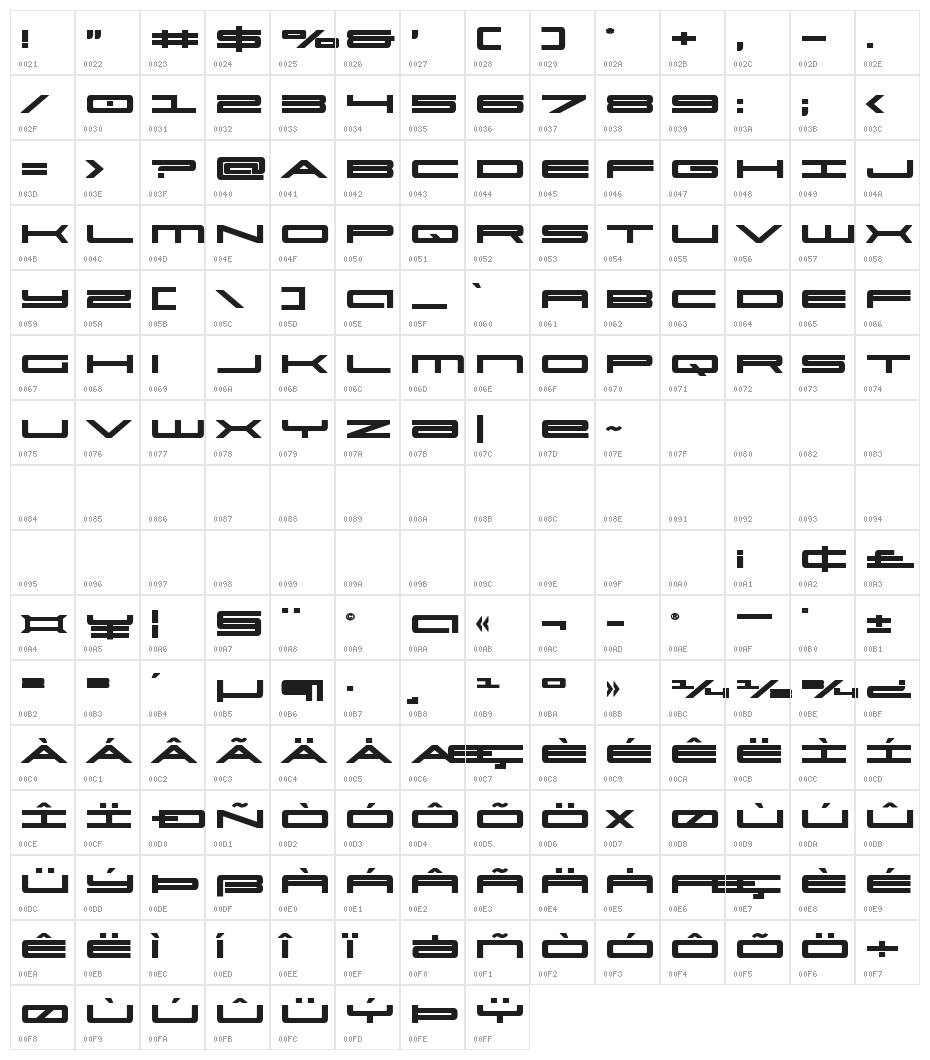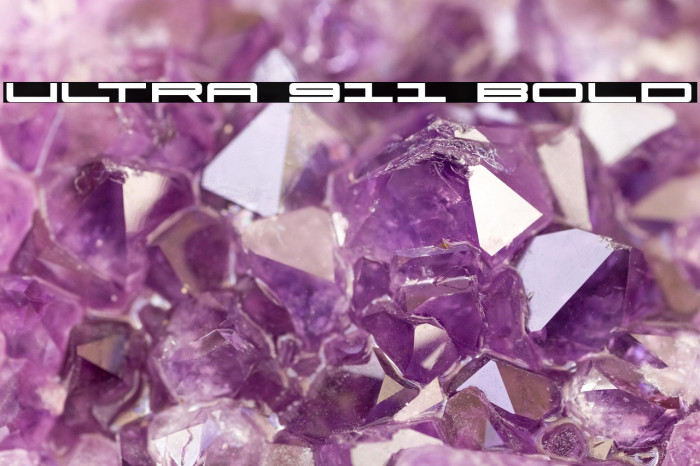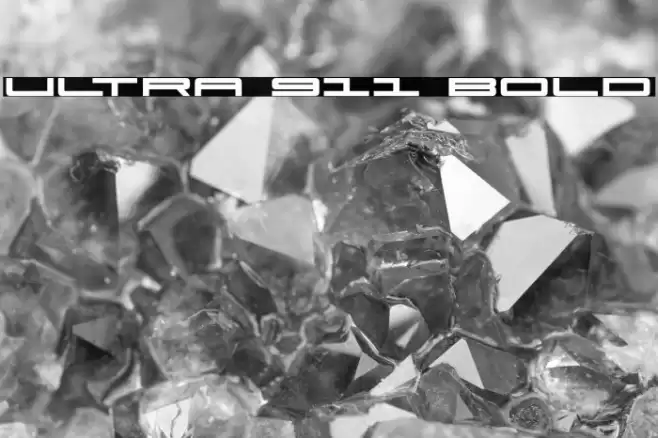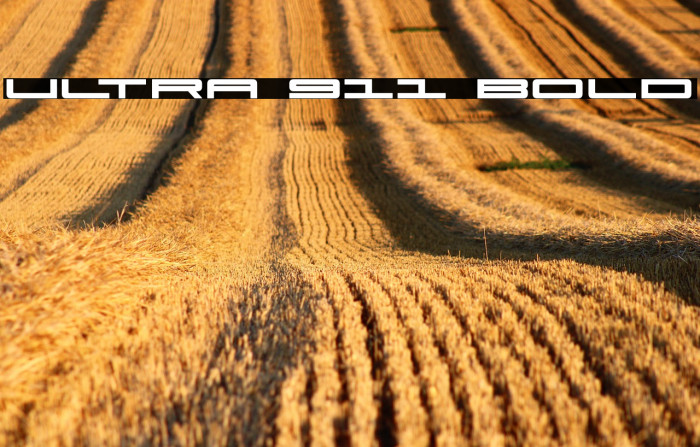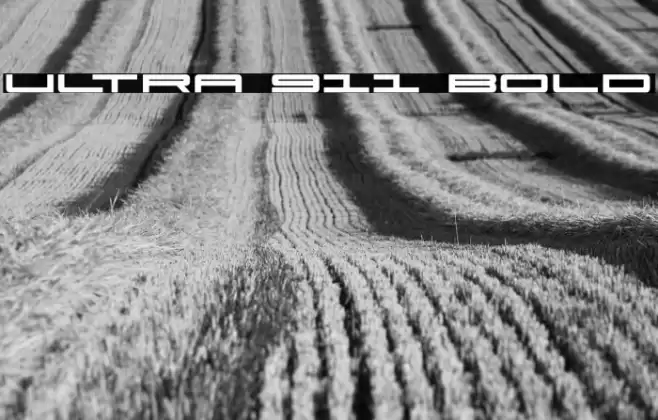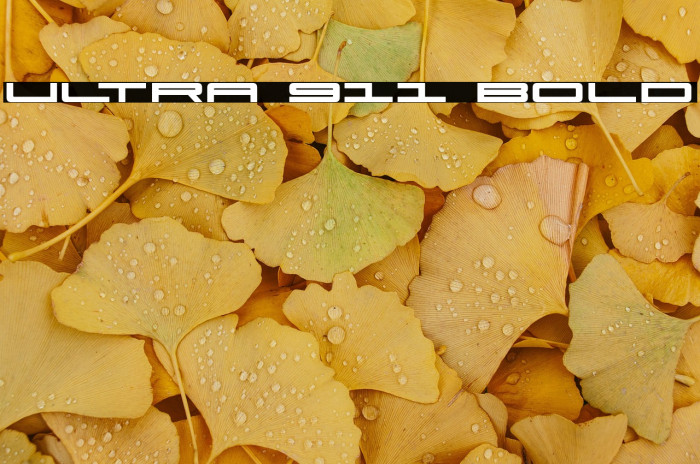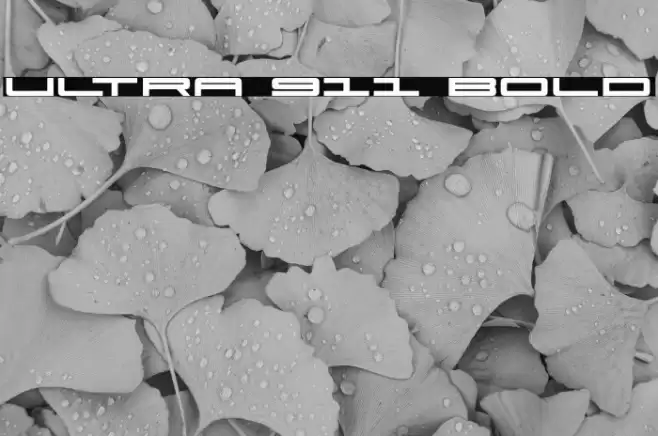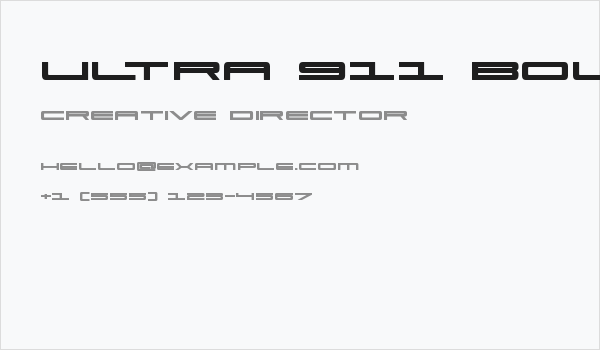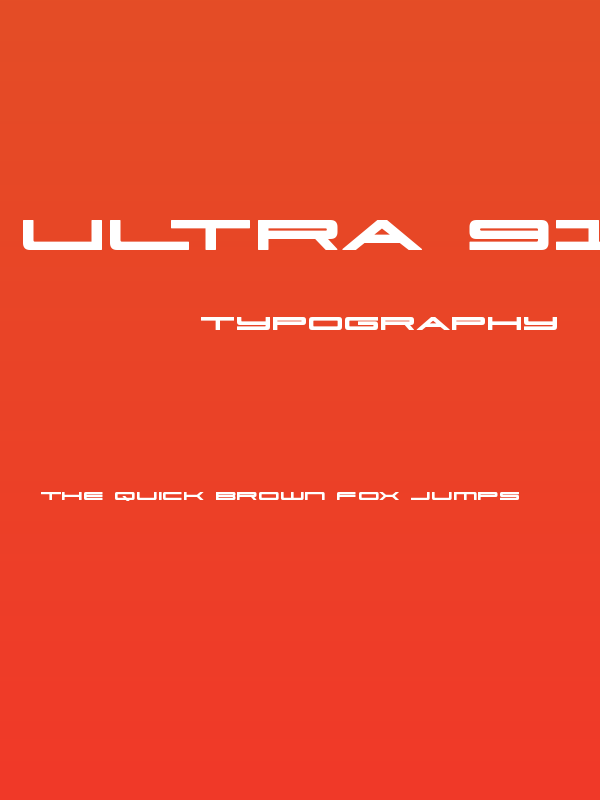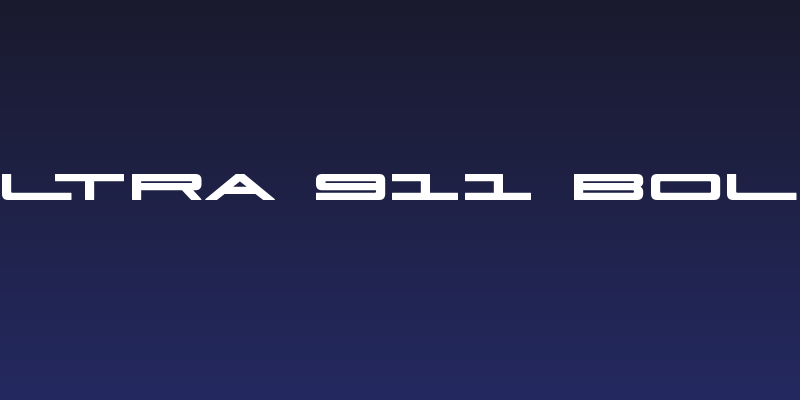
Ultra 911 Bold Font
Ultra 911 Bold Description
This font features a futuristic and geometric design, characterized by its bold and angular letterforms. The uppercase and lowercase letters maintain a consistent style, with sharp edges and a uniform stroke width that conveys a sense of modernity and precision. The numerals and special characters follow the same design principles, ensuring a cohesive appearance across all glyphs. The font's structure is clean and minimalistic, making it suitable for projects that require a contemporary and tech-oriented aesthetic.
| Proposed Projects | Ideal for technology branding, sci-fi themed designs, video game interfaces, and modern advertising campaigns. |